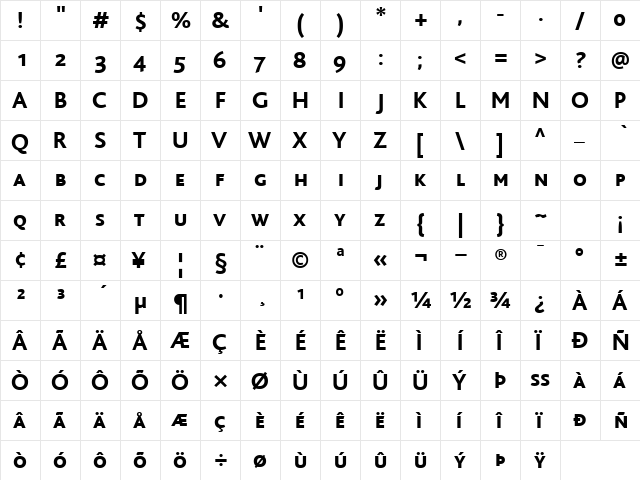
BlissCapsExtraBold Regular
Design Context for BlissCapsExtraBold Typeface
BlissCapsExtraBold takes a measured approach to typography — its balanced proportions and neutral character make it a reliable workhorse for both digital and print work. Its bold stroke weight gives it real presence on the page.